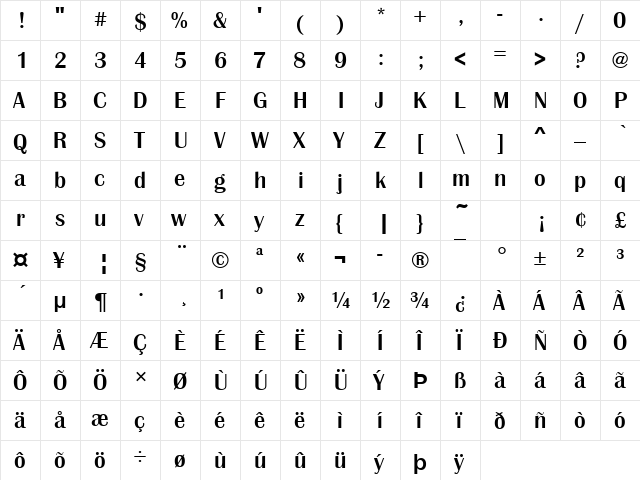
BritannicTMed Regular
Design Context for BritannicTMed Typeface
BritannicTMed takes a measured approach to typography — its balanced proportions and neutral character make it a reliable workhorse for both digital and print work.